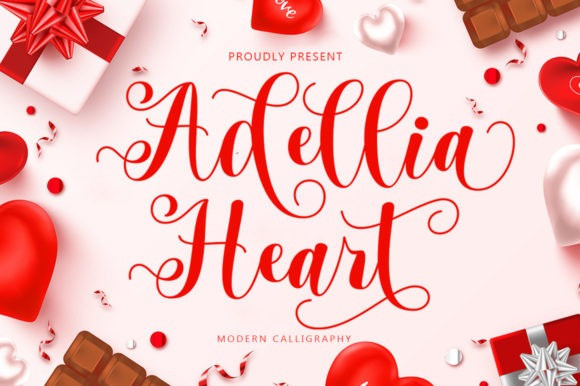
Adellia Heart Font
Adellia Heart Calligraphy Font is a highly detailed and chic script font. Its distinct and well balanced letters make this font a masterpiece. This font is PUA encoded which means you can access all of the glyphs and swashes with ease!